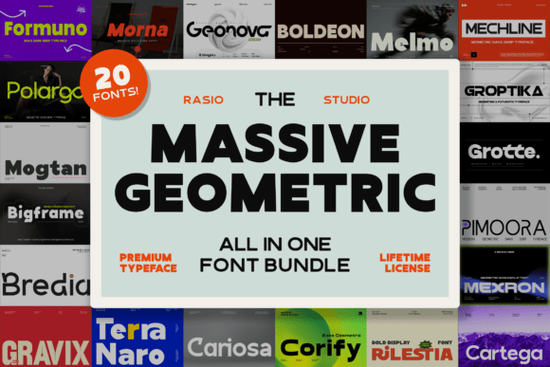
Designers, crafters, and small business owners often look for versatile tools that can simplify their workflow while delivering professional results. The {title} is a powerful resource for anyone looking to create modern, clean, and impactful designs. With 20 premium geometric sans serif typefaces in one bundle, this collection offers a wide range of options for everything from bold headlines to minimalist layouts.
The {title} is built on strong geometric foundations, ensuring each font maintains balanced proportions and consistent structure. This makes them highly readable across both digital and print formats. Whether you're designing a logo, creating social media graphics, or working on a print project, these fonts provide the clarity and precision needed for a polished final product.
Why Geometric Sans Serif Fonts Matter
Geometric sans serif fonts are popular for their clean lines and modern appeal. They work well in a variety of design contexts, offering a sleek and professional look without being too rigid. The {title} includes a range of weights and styles, making it easy to find the perfect font for any project. From light to heavy variations, each typeface is designed with versatility in mind.
These fonts are especially useful for creating visual identities that feel contemporary and cohesive. Their structured forms make them ideal for branding, packaging, and editorial design. The consistency across the entire bundle ensures that your designs will look unified and professional, no matter the application.
How to Use the Massive Geometric Font Bundle
One of the biggest advantages of the {title} is its flexibility. You can use it for web design, app interfaces, marketing materials, or even personal projects. The clean and modern aesthetic of geometric fonts makes them suitable for a wide range of industries, including tech, fashion, and lifestyle brands.
For example, if you're working on a website or mobile app, the bold weights in this bundle can be used for headings and call-to-action buttons. Lighter versions are great for body text or subtle background elements. The variety of styles means you won’t have to switch between multiple font families to achieve a cohesive look.